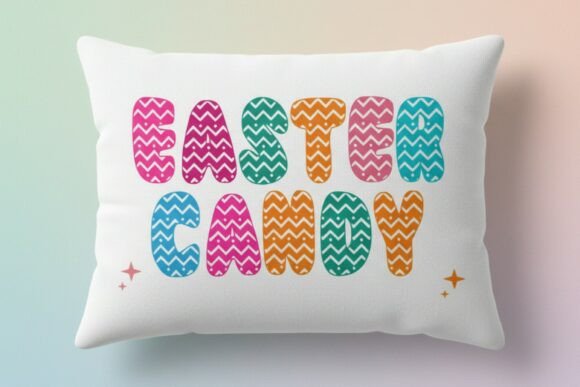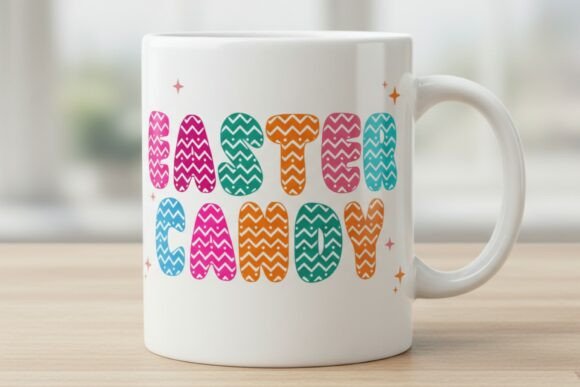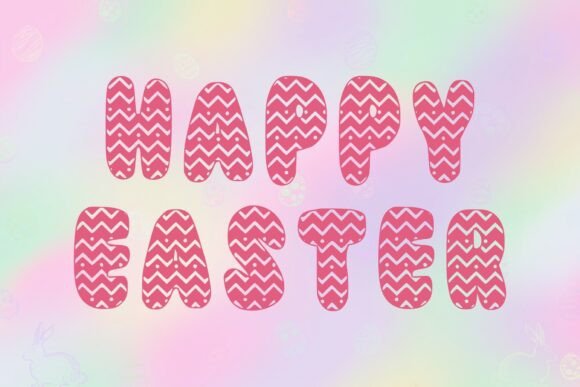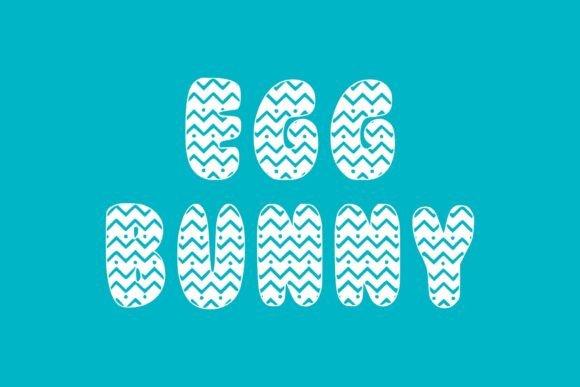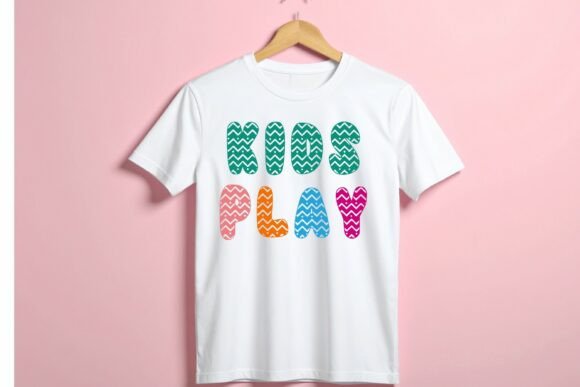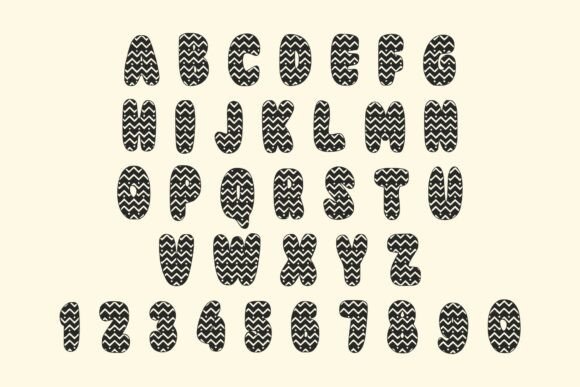
Easter Candy Font: Add a Joyful Pop of Color to Your Spring Projects
Are you looking for a fun and eye-catching font to make your Easter or spring-themed projects stand out? Look no further than the Easter Candy Display Font! This adorable decorative typeface is inspired by colorful Easter eggs and sweet candy vibes, bringing a cheerful and festive touch to any design.
What is Easter Candy Display Font?
Easter Candy Display Font is a bold, rounded typeface featuring playful zigzag patterns that fill each letter. The font’s design is reminiscent of colorful Easter eggs and candy, making it perfect for spring or Easter-themed projects. Its vibrant and whimsical style makes it ideal for kids’ designs, seasonal branding, and standout headlines.
Features of Easter Candy Display Font
- Bold and rounded letters: The font features bold, rounded letters that are perfect for creating eye-catching headlines and titles.
- Playful zigzag patterns: Each letter is filled with playful zigzag patterns, adding a fun and festive touch to your designs.
- Vibrant and whimsical style: The font’s vibrant and whimsical style makes it perfect for kids’ designs, seasonal branding, and standout headlines.
- Multipurpose use: The font is perfect for a variety of projects, including Easter invitations, greeting cards, classroom decorations, sublimation designs, t-shirts, stickers, posters, social media graphics, and DIY crafts.
Uses for Easter Candy Display Font
Easter Candy Display Font is a versatile font that can be used for a wide range of projects, including:
- Easter invitations: Create eye-catching Easter invitations that will stand out from the crowd.
- Greeting cards: Add a personal touch to your Easter greeting cards with this fun and festive font.
- Classroom decorations: Create colorful and engaging classroom decorations, such as bulletin boards and posters.
- Sublimation designs: Use the font to create vibrant sublimation designs for t-shirts, mugs, and other products.
- T-shirts and stickers: Create fun and festive designs for t-shirts and stickers.
- Posters and social media graphics: Use the font to create eye-catching posters and social media graphics.
- DIY crafts: Add a personal touch to your DIY crafts, such as Easter baskets and decorations.
Why Choose Easter Candy Display Font?
There are many reasons to choose Easter Candy Display Font for your spring or Easter-themed projects. Here are a few:
- Unique and eye-catching design: The font’s unique and eye-catching design will make your projects stand out from the crowd.
- Multipurpose use: The font can be used for a wide range of projects, making it a great value.
- Fun and festive: The font’s fun and festive design will add a joyful pop of color to your projects.
Easter Candy Display Font is a fun and eye-catching decorative typeface that is perfect for spring or Easter-themed projects. Its bold, rounded letters and playful zigzag patterns make it a great choice for kids’ designs, seasonal branding, and standout headlines. With its multipurpose use and easy-to-use design, this font is a great addition to any designer’s or crafter’s toolkit. So why wait? Download Easter Candy Display Font today and add a joyful pop of color to your creative projects!
Perfect for: Easter invitations, greeting cards, classroom decorations, sublimation designs, t-shirts, stickers, posters, social media graphics, DIY crafts, and more!